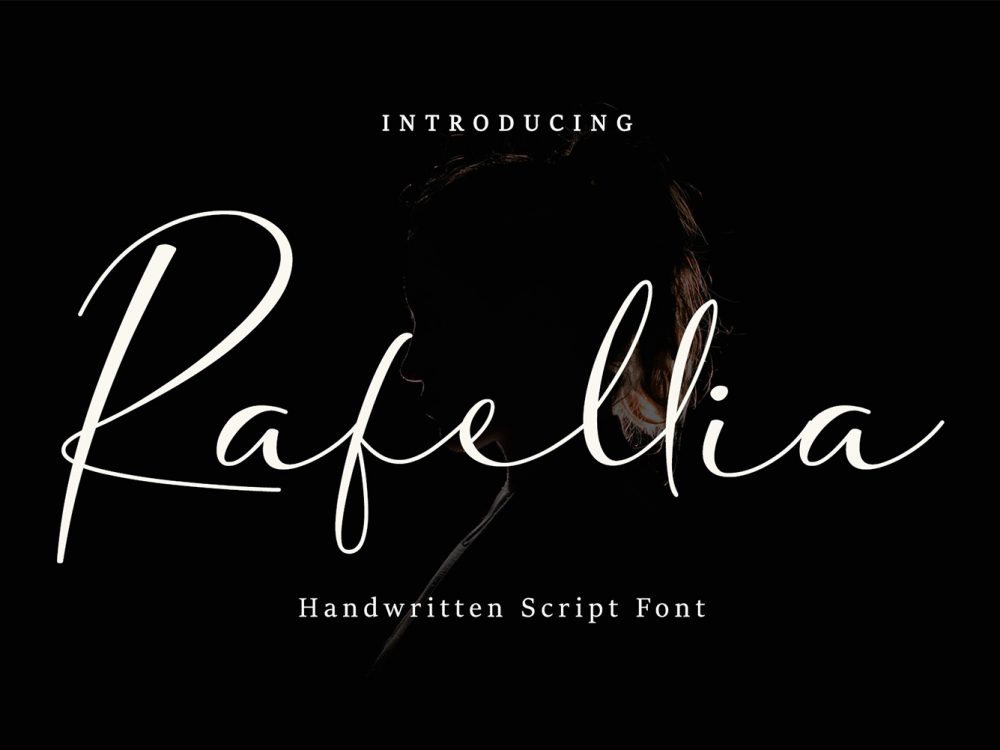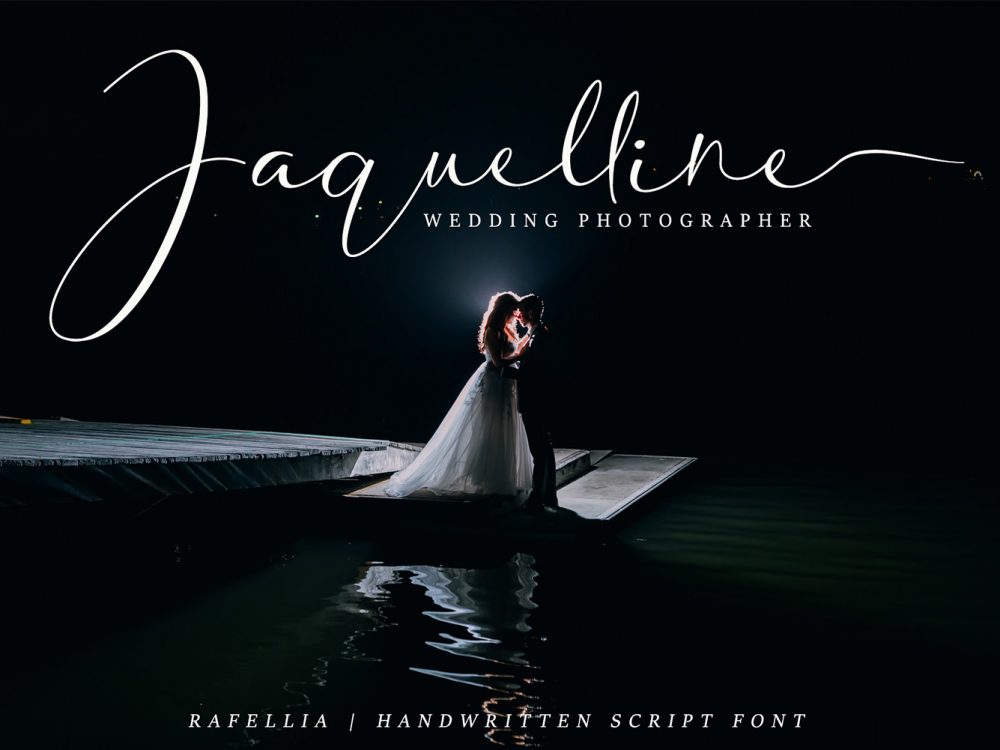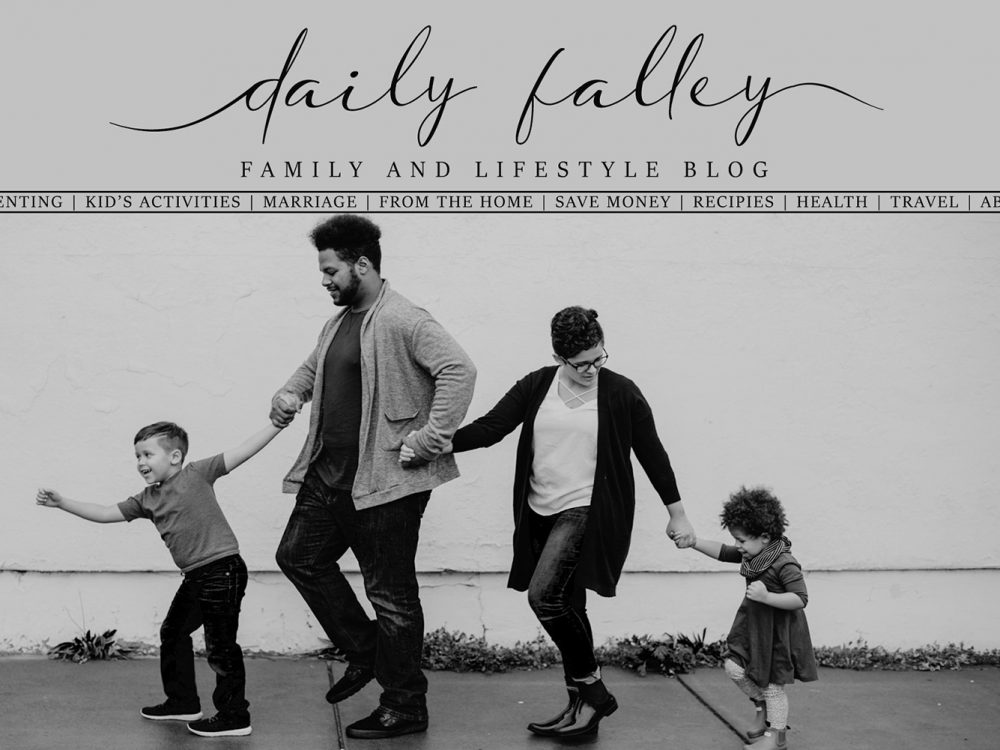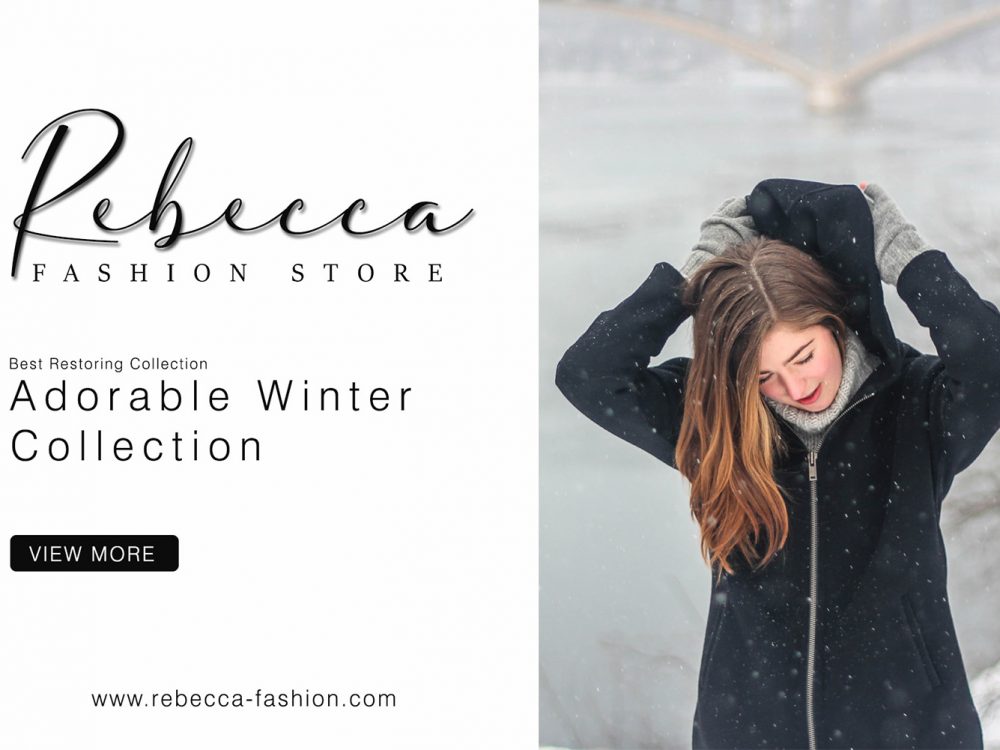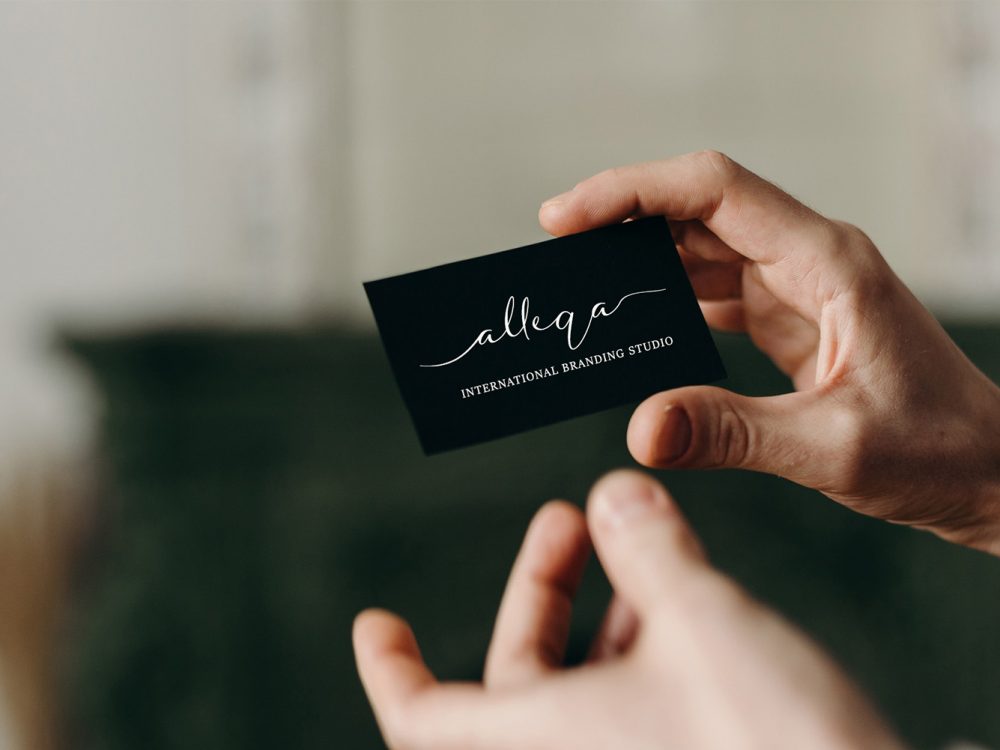
Rafellia Free Font
Rafellia Free Font is a calligraphic font that has a modern and interesting style. This font is well suited for a variety of design projects that require a scriptable, interesting handwritten font. You can use this font to create memorable romantic posters, wedding invitations, greeting cards, branding, flyers, t-shirt and pillow prints, and more. Improve the quality and increase the popularity of your design projects using this font. If you like it don’t forget to check out the full version.